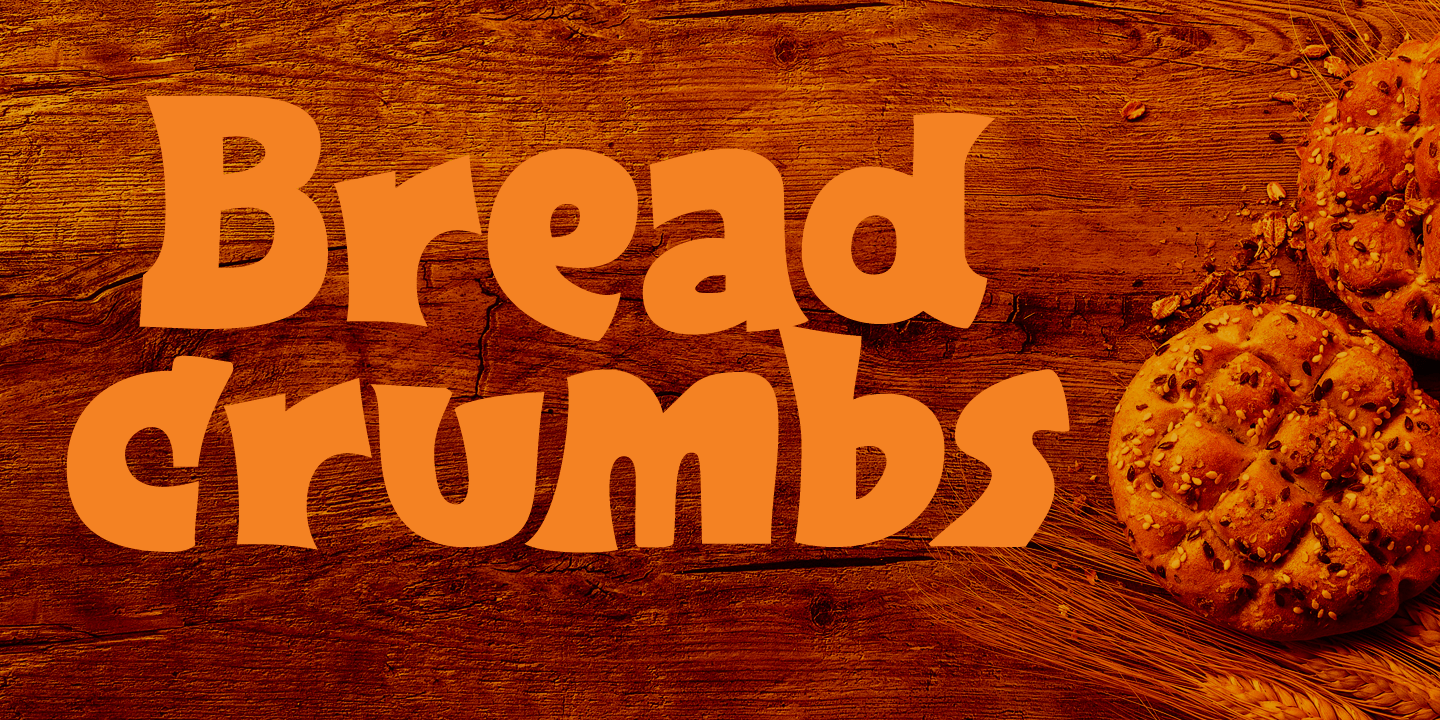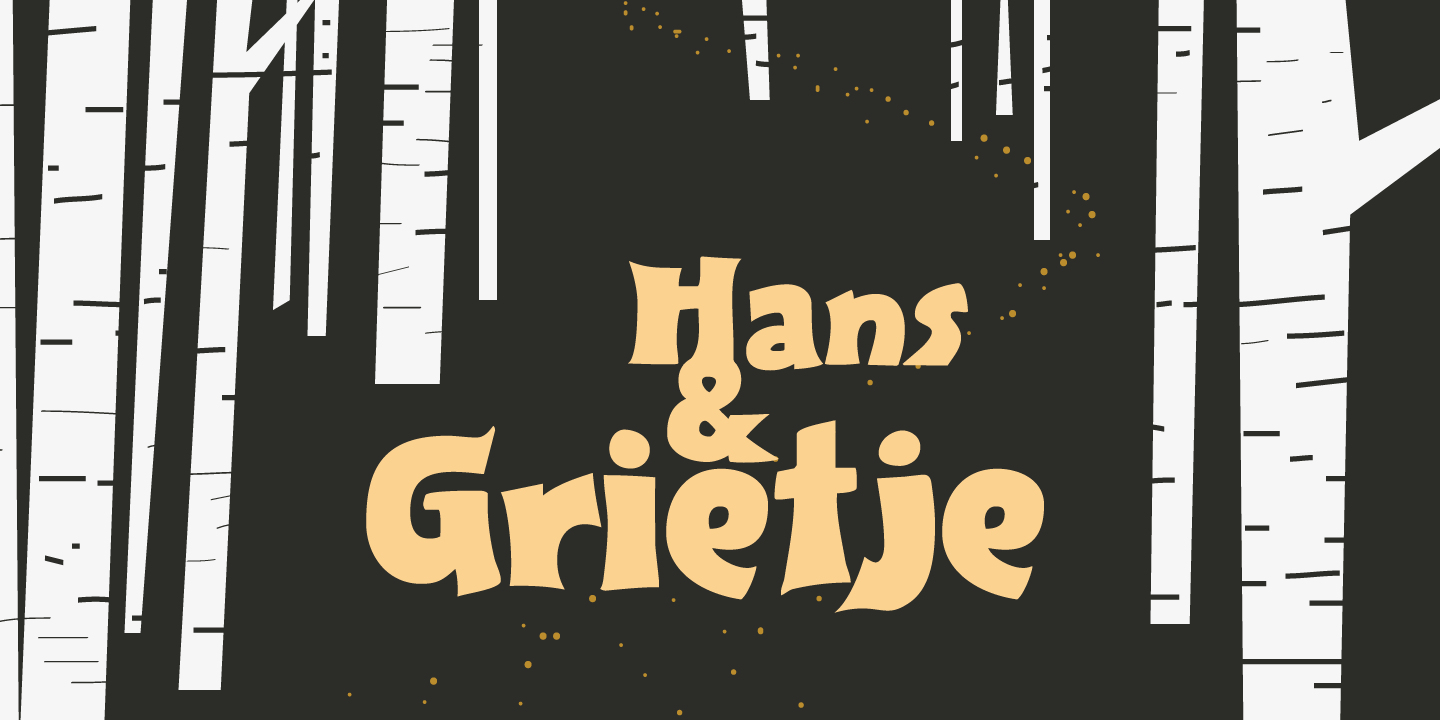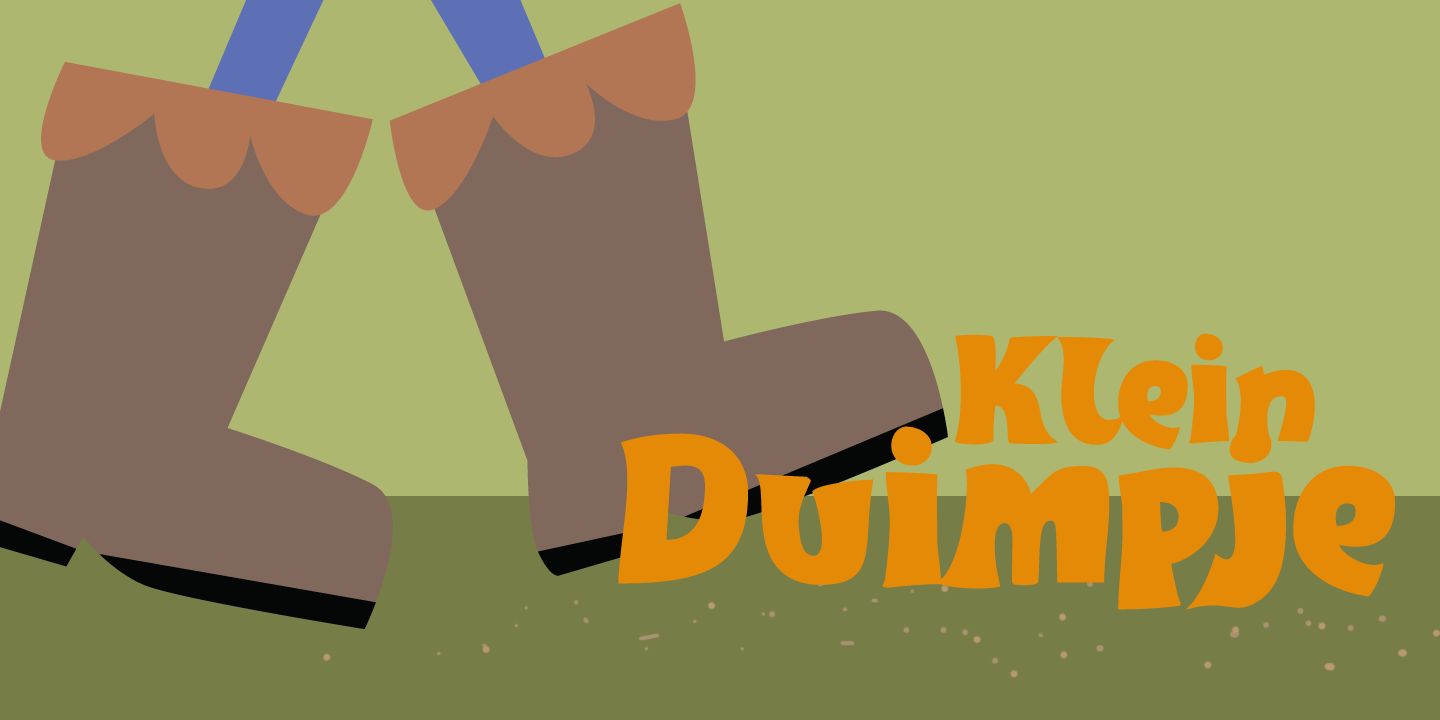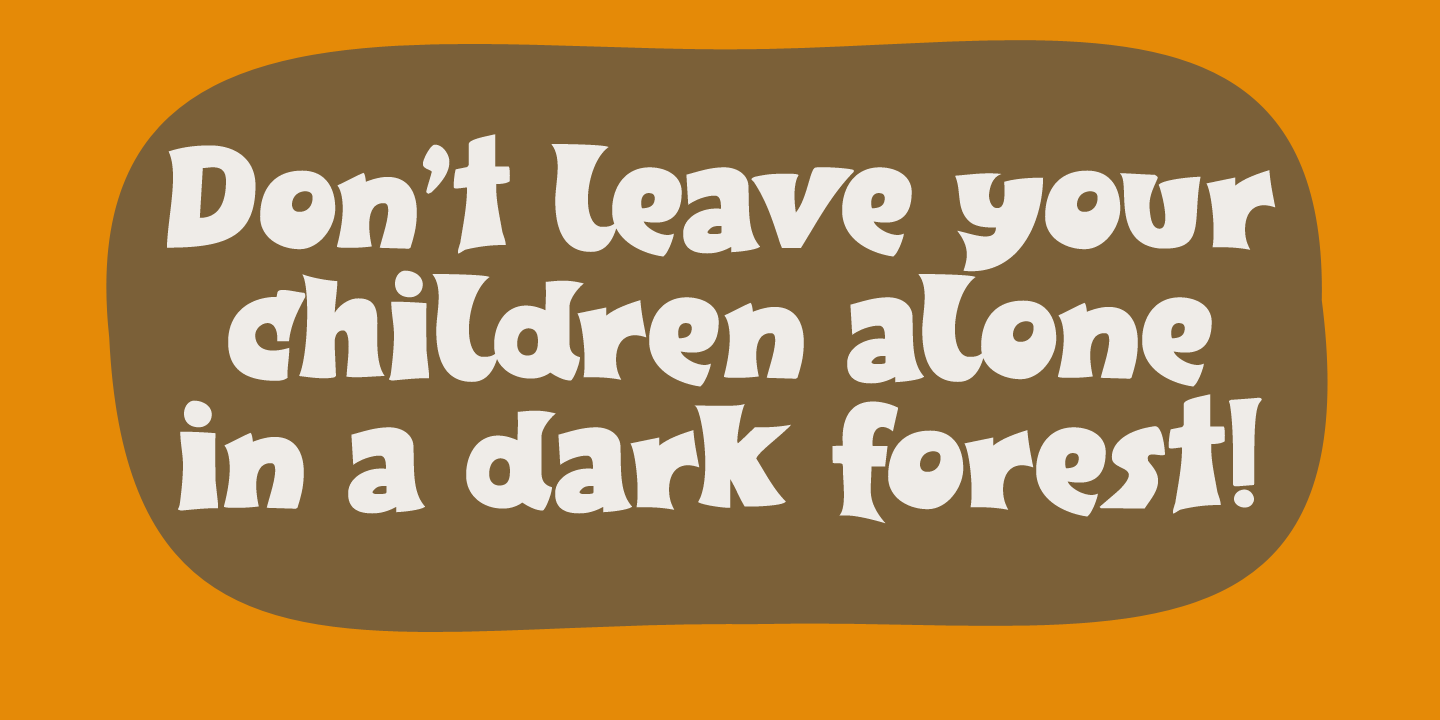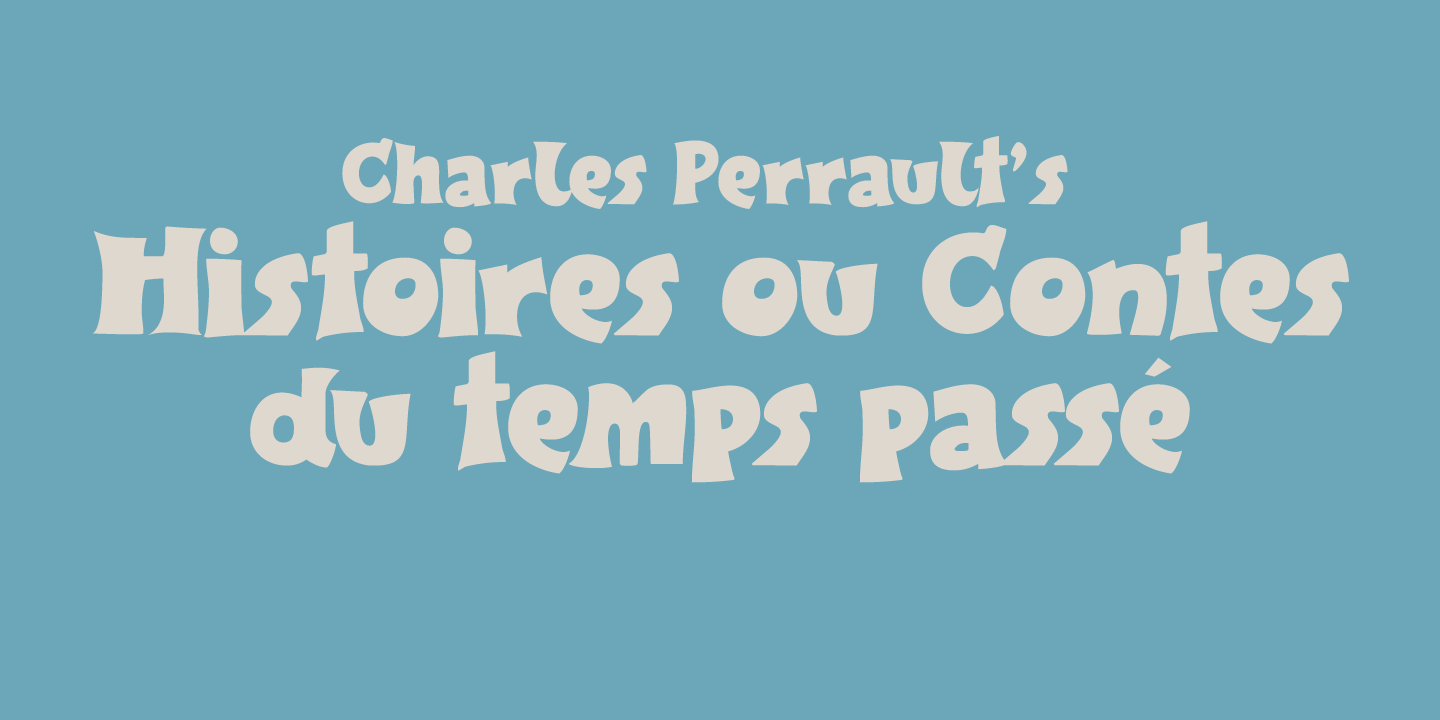
Breadcrumbs
Every morning, after the kids have gone to school, I vacuum the floor and remove about half a kilo of breadcrumbs? No, not really have a kilo, but any given bird could probably survive on the leftovers. When it was time to name this font, Breadcrumbs was all I could think of!
Breadcrumbs and children seem to go together well, as they are featured in Hansel & Gretel and Hop-o'-My-Thumb.
Breadcrumbs font is a happy, sloppy fairytale font, which you can use for your book covers, your party posters and maybe crumbly bread packaging. But that is entirely up to you.